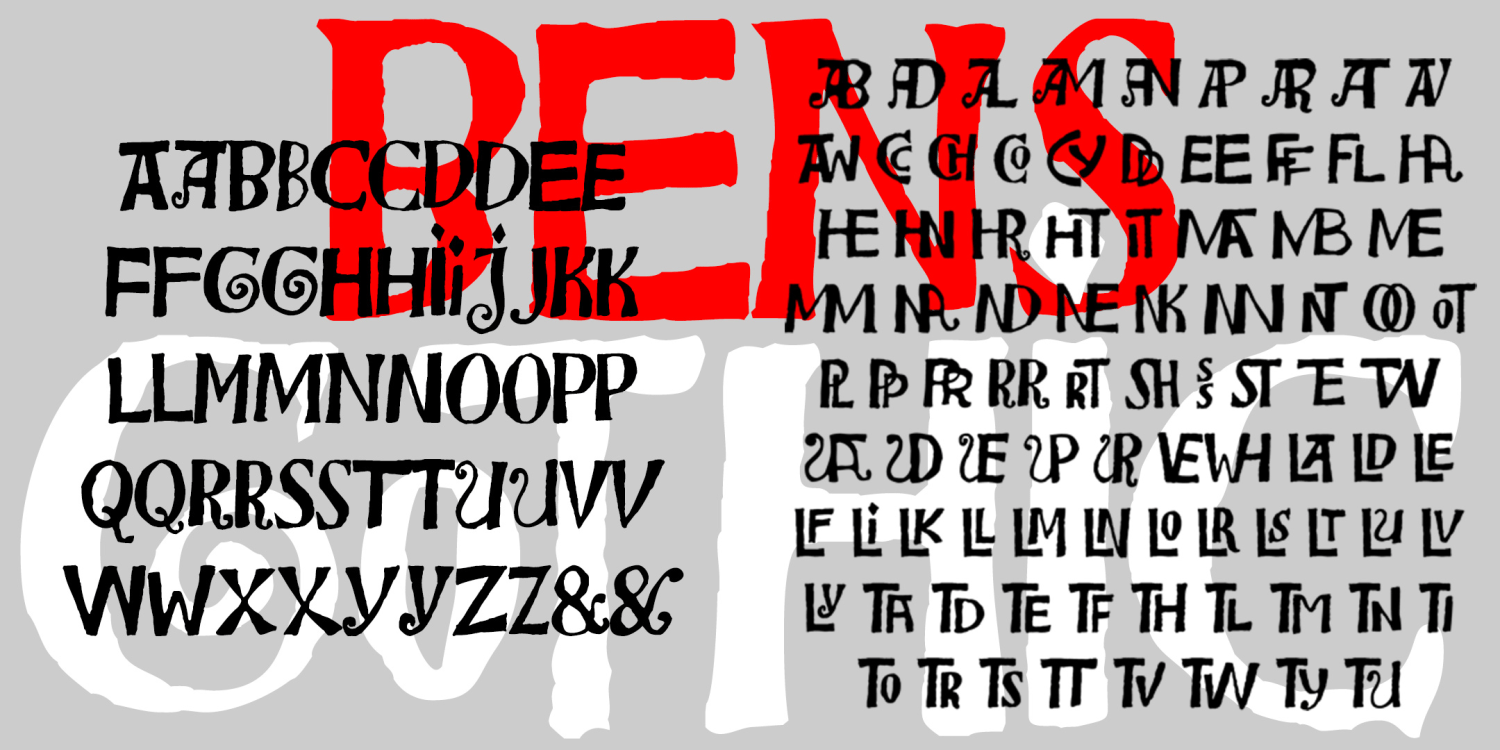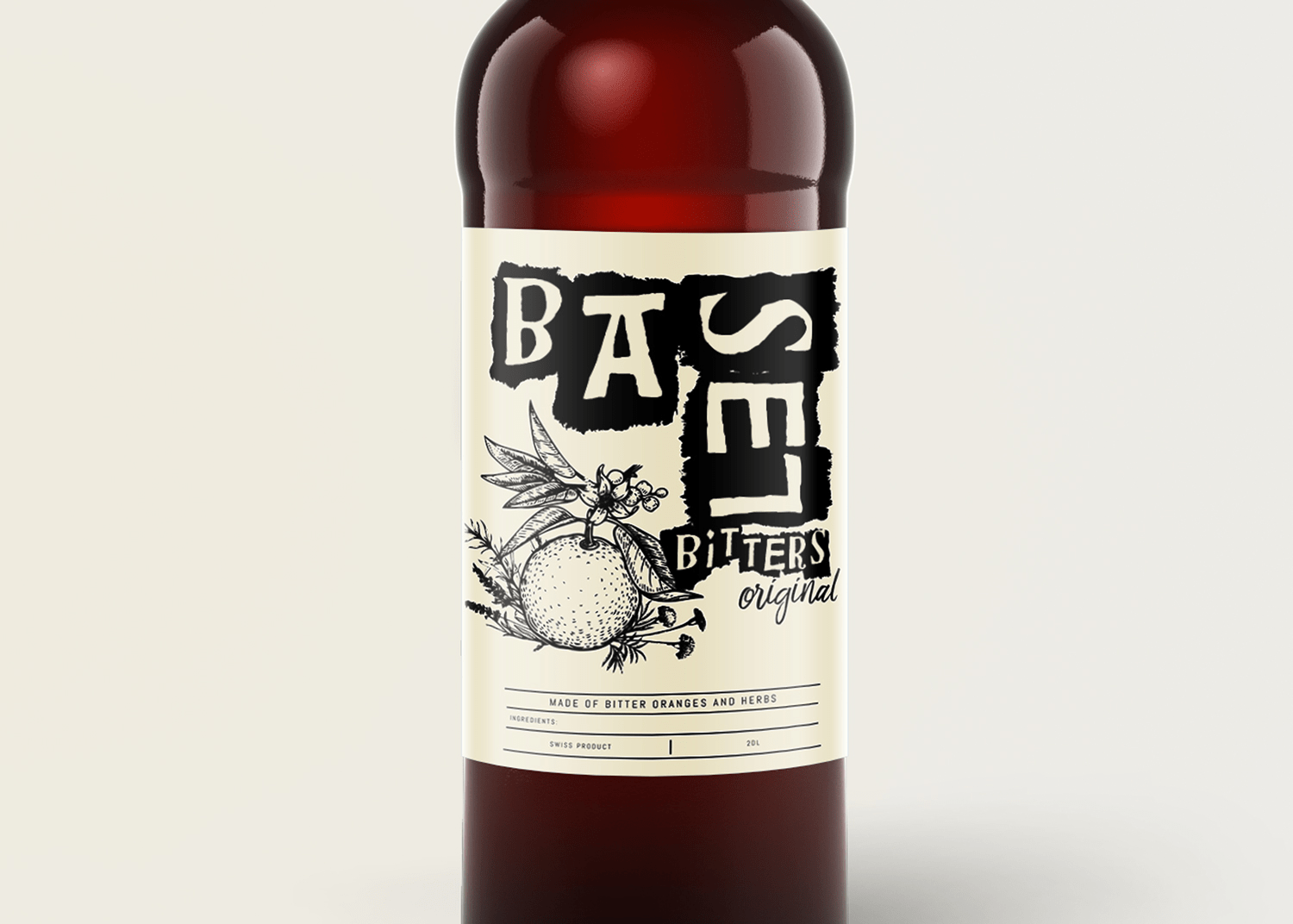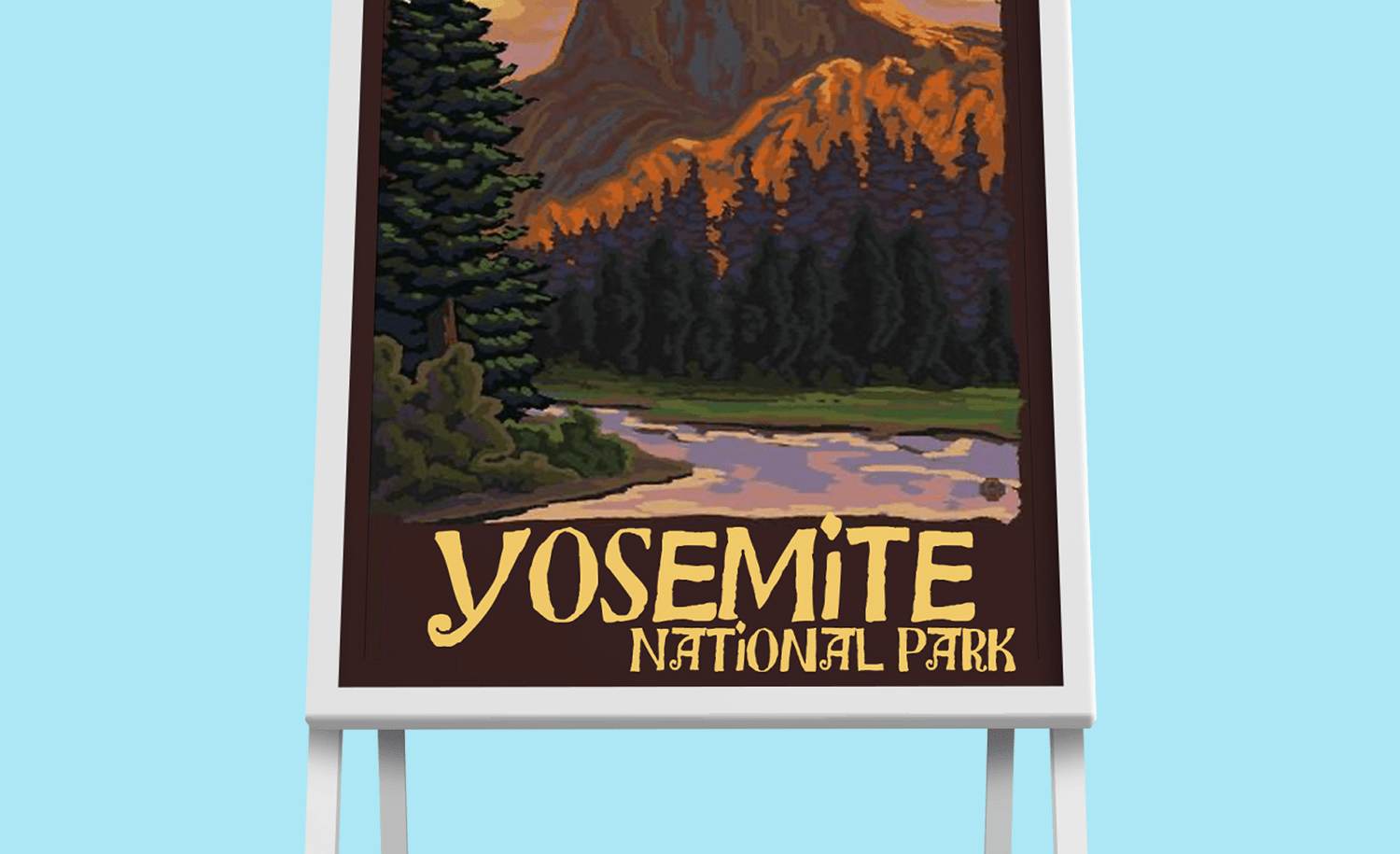
Bensgothic
BENSGOTHIC was inspired by the work of the artist Ben Shahn, like BENSFOLK.
This style–which Shahn applied to psalms, Christmas cards, posters, and many other items—suggests inscriptional capitals like those of Byzantine mosaics, the Bayeux tapestry, or medieval manuscripts. He made great use of fanciful ligatures, which are included in the font for a totally hand-lettered feel.